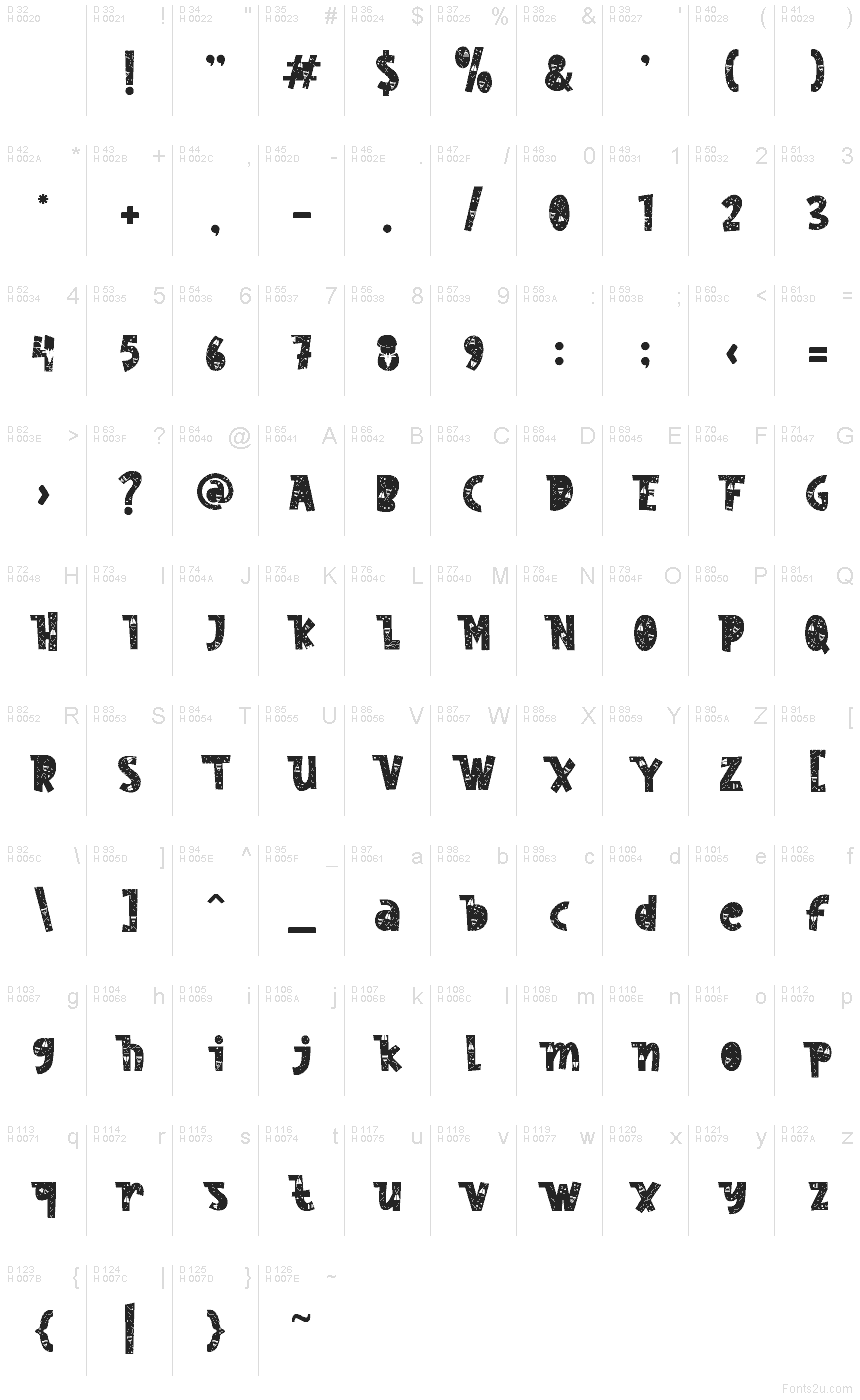
Nordic Whimsy Five
Nordic Whimsy Five font by PutraCetol Studio is an ornate display font packed with decorative elements in each stroke. Medium bold and extraordinary, this one-of-a-kind typeface carries a whimsical mood and an authentic artistic feel. It has intricate details that showcase its eye-catchy personality as it stands out wonderfully in every project that includes it.
A definite attention grabber, Nordic Whimsy five works for posters, logos, t-shirts, tattoos, album covers, labels, invitations, greeting cards, stickers, signage designs, etc. Make sure to give this beautiful free decorative display font a proper try!